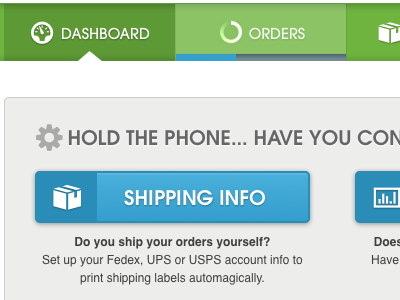
Yay for CSS3 Buttons and Pictos Font Server!
Here's a tight crop of the dashboard all marked up and styled. Feeling pretty good about it. I redid all of the buttons using only CSS and also sprung for a Pro Plan for Pictos Server to handle all of our icons from here on out. Granted, I had to change the design of a lot of the icons from original design to equivalents in the Pictos font, but I'm seriously blown away by how awesome it is to use instead of image sprites.